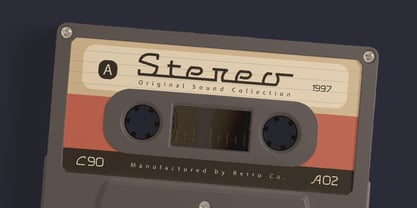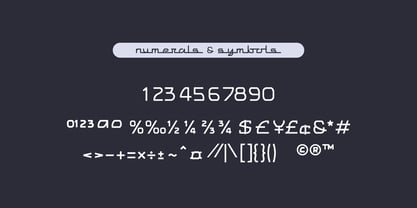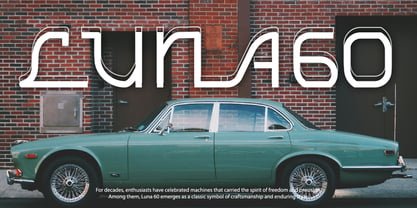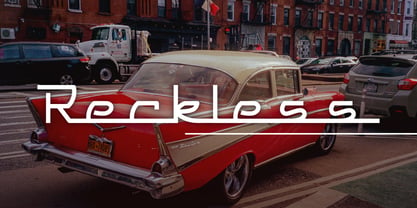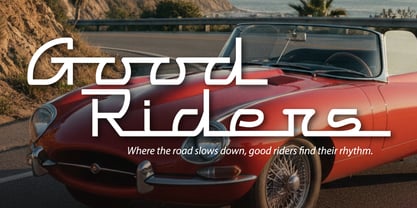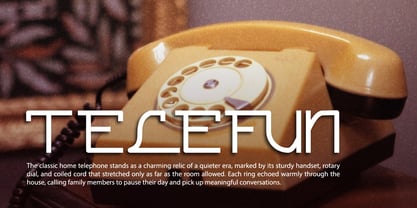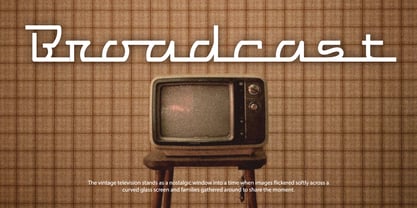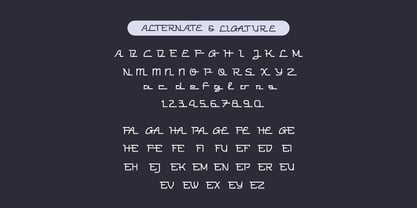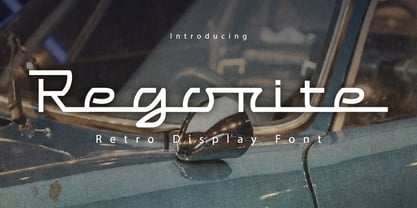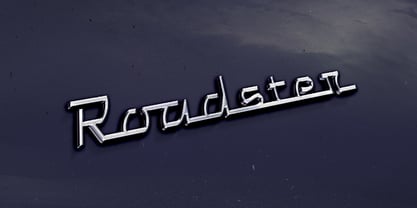
Regorite
The Regorite Font Family was designed by Yohanes Oktavianus Aang and published by Yohanes Oktav. Regorite contains 1 styles. More about this family
Regorite is a retro-futuristic display typeface that masterfully balances geometric discipline with an expressive, hand-drawn rhythm. Its defining characteristic is a continuous linear motion reminiscent of vintage automotive emblems, mid-century signage, and early computer lettering. Each glyph features a streamlined structure with extended horizontal strokes and curved terminals that seamlessly transition into the next form, complemented by subtle mechanical quirks that impart a distinctive engineered personality. The uppercase letters adopt a boxier, industrial silhouette, while the lowercase introduces a softer, more fluid script-like motion, creating a dynamic balance between structure and speed. Alternates and ligatures enhance this visual vocabulary, empowering designers to create unique wordmarks with a customized retro cadence. The overall impression is sleek, nimble, and evocative—ideal for branding, editorial titles, and display work that seeks to capture a sense of nostalgic innovation, merging past-era charm with contemporary minimalism.